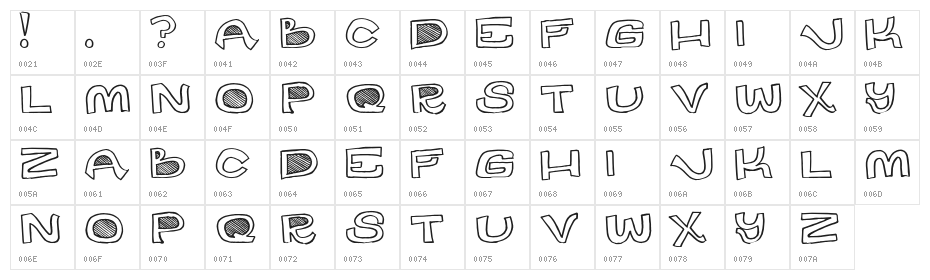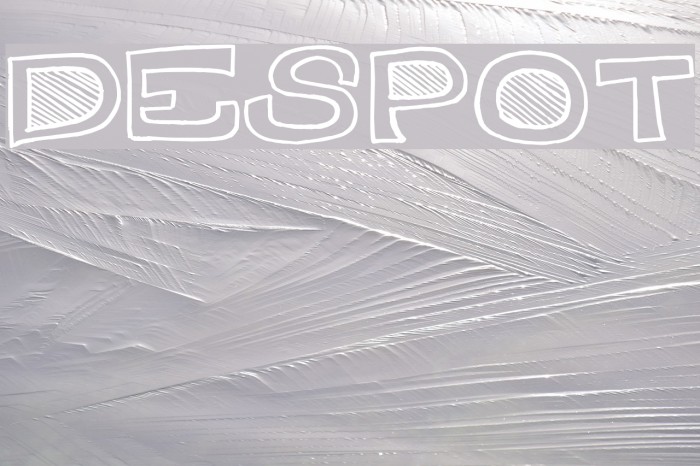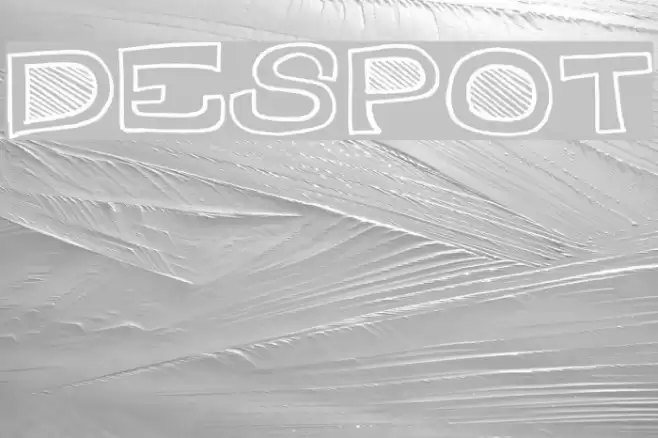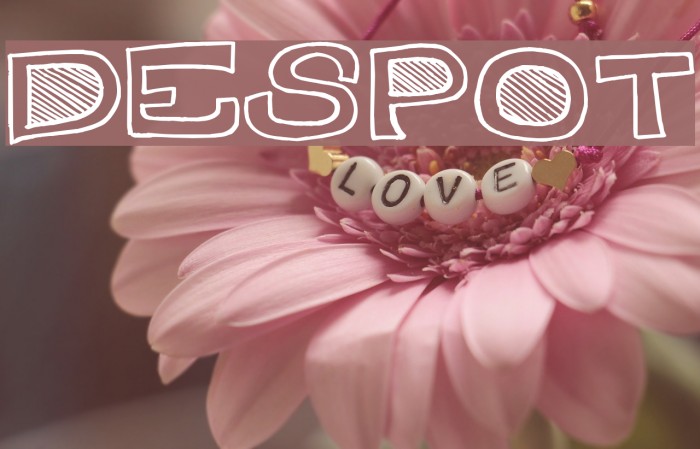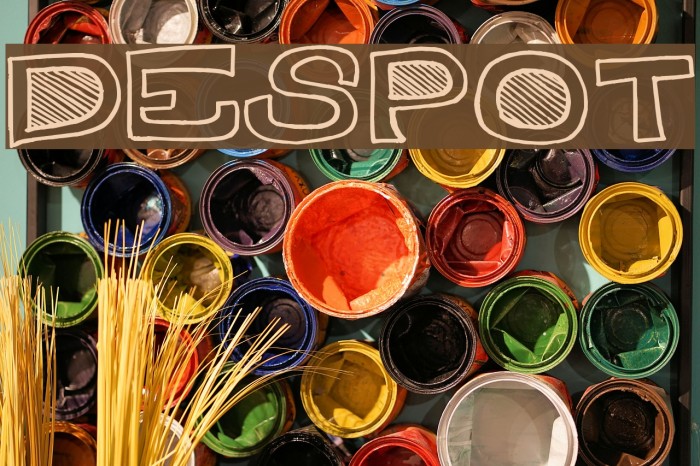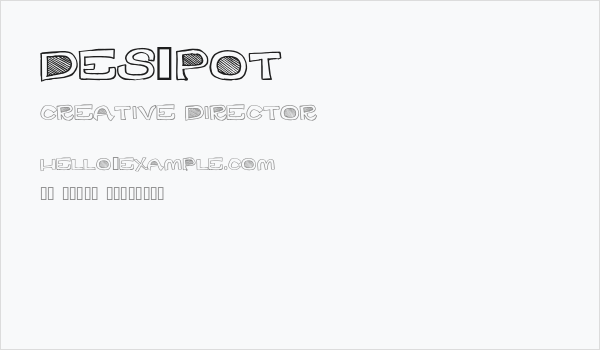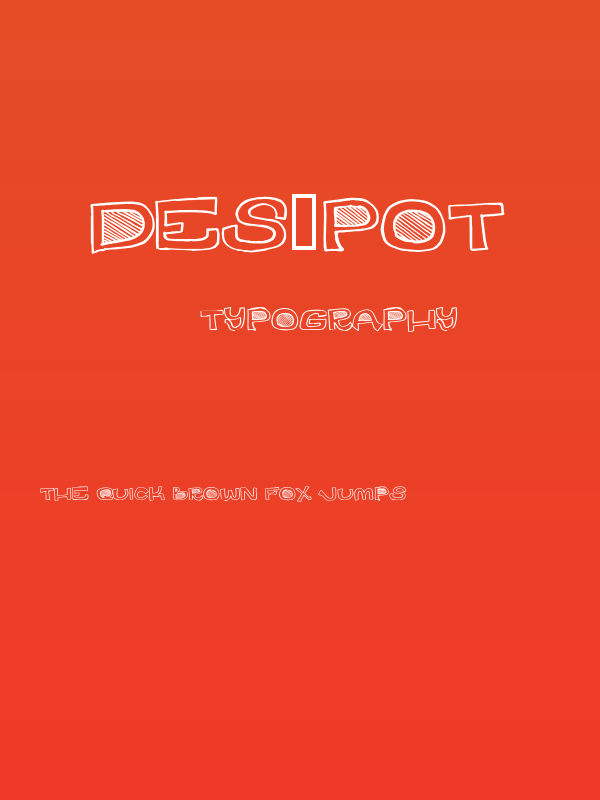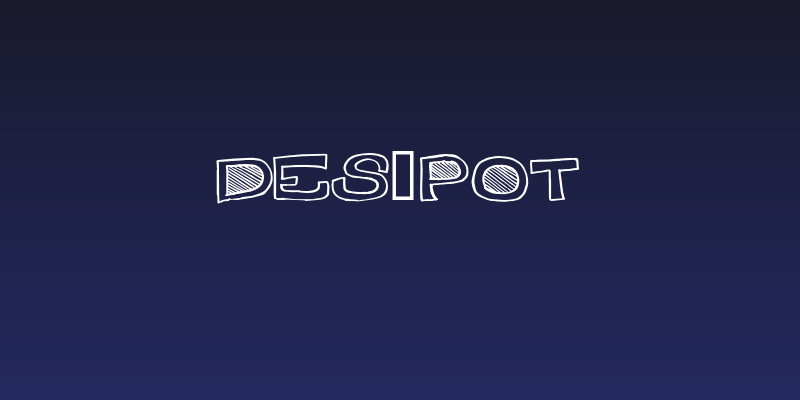
Des-Pot Font
Des-Pot Description
This font features a playful and decorative style, characterized by its bold, outlined letters with a unique, hand-drawn appearance. Each character is filled with intricate patterns, such as stripes and dots, adding a textured effect that enhances its visual appeal. The uppercase and lowercase letters maintain a consistent style, with rounded edges and a slightly irregular shape that gives a casual, artistic vibe. The numbers and special characters follow the same design principles, ensuring uniformity across the font. This font's distinctiveness makes it ideal for creative projects that require a touch of whimsy and individuality.
| Proposed Projects | Ideal for children's books, playful branding, creative posters, and artistic invitations. |